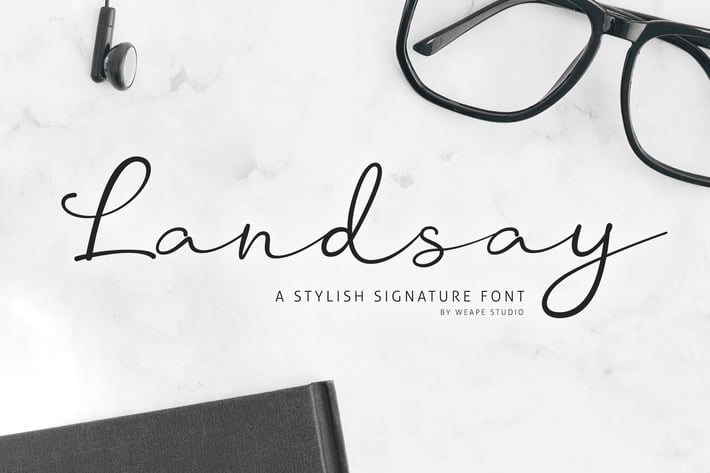
Landsay - Stylish Signature Font
Introducing Landsay - Stylish Signature Font.
This is a stylish modern calligraphy font with casual handwriting. It is perfect for branding, signature logo, wedding invitation, photography, and you can use and enjoy Landsay, for promotional material and anything.